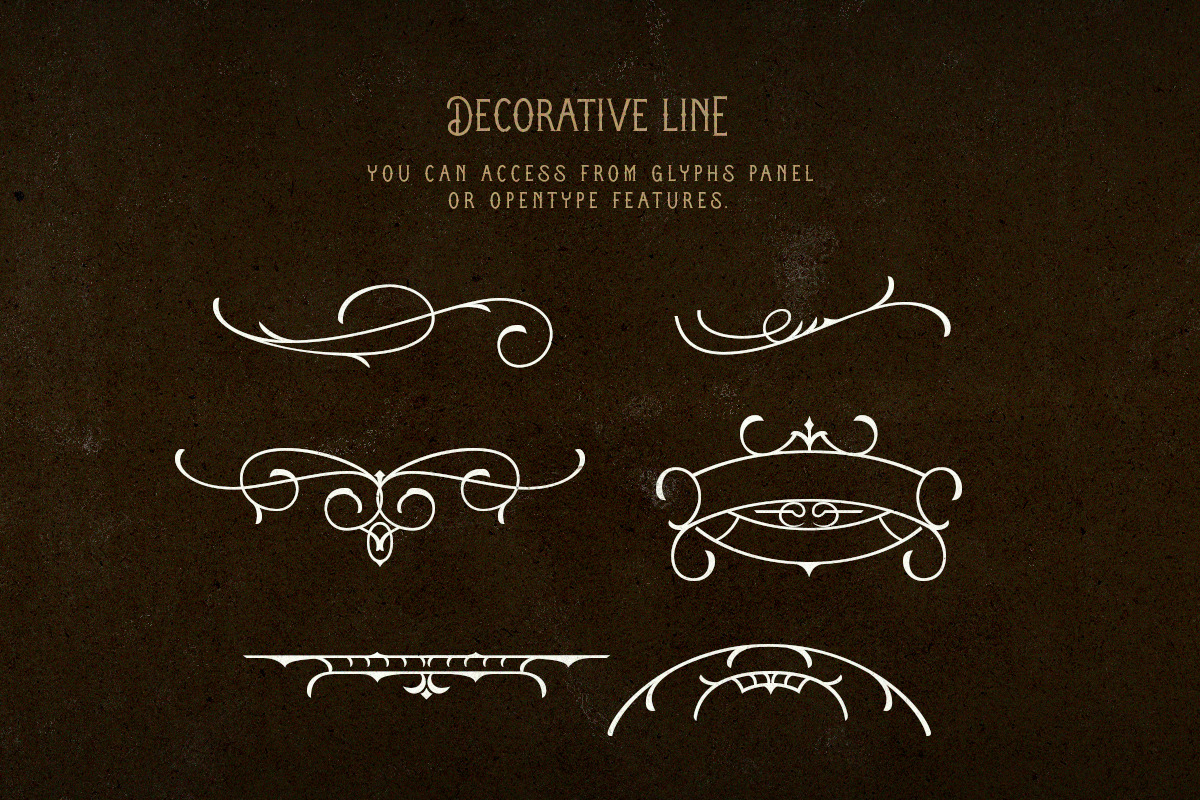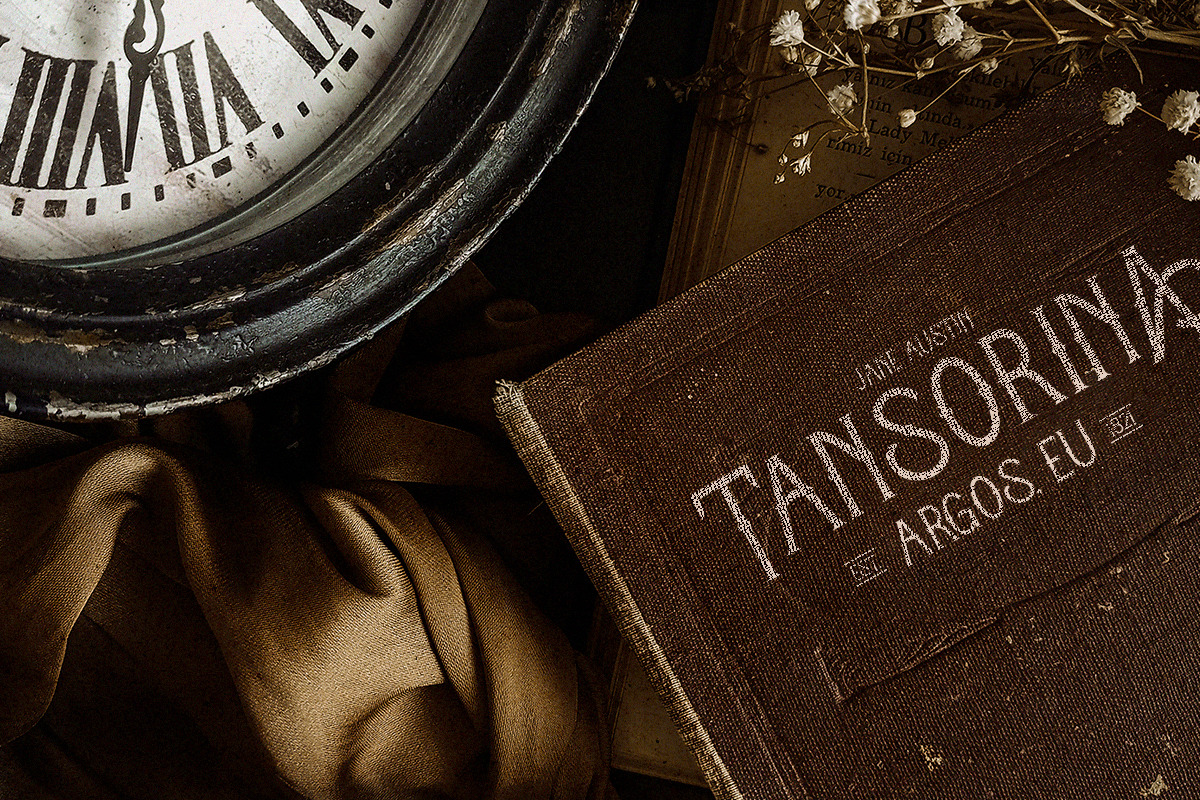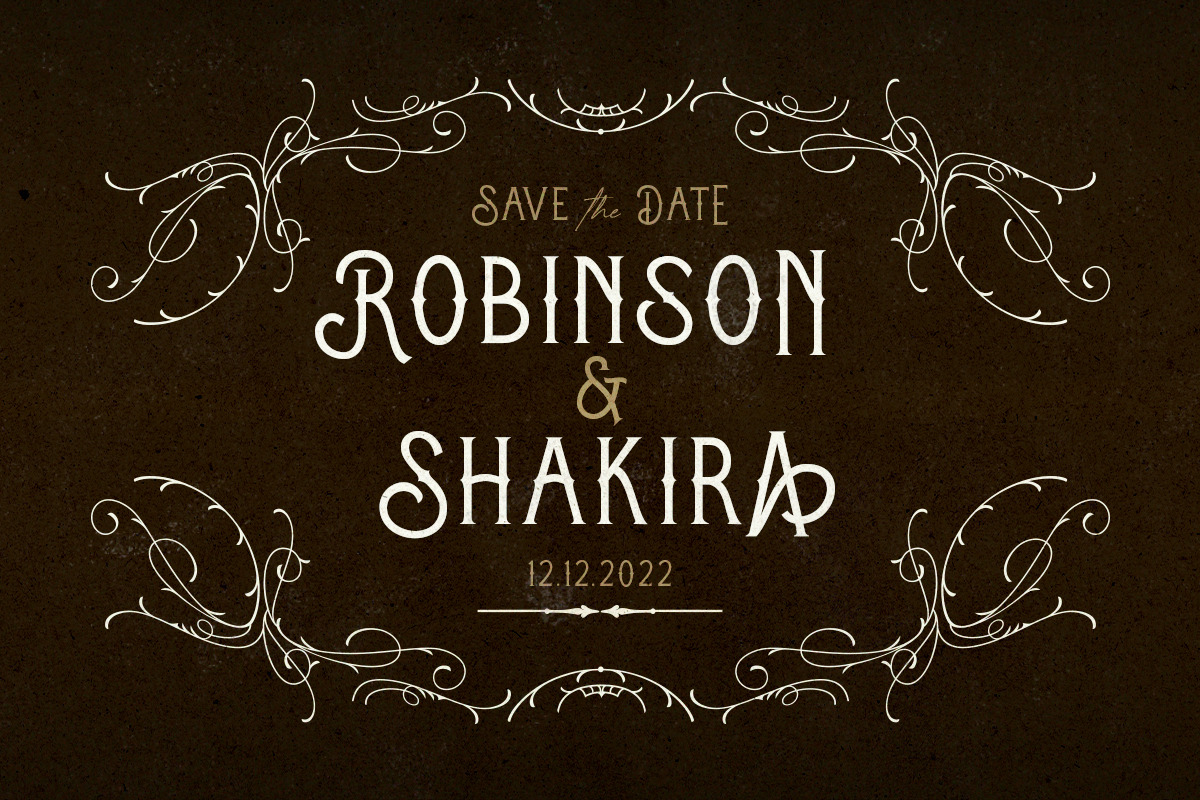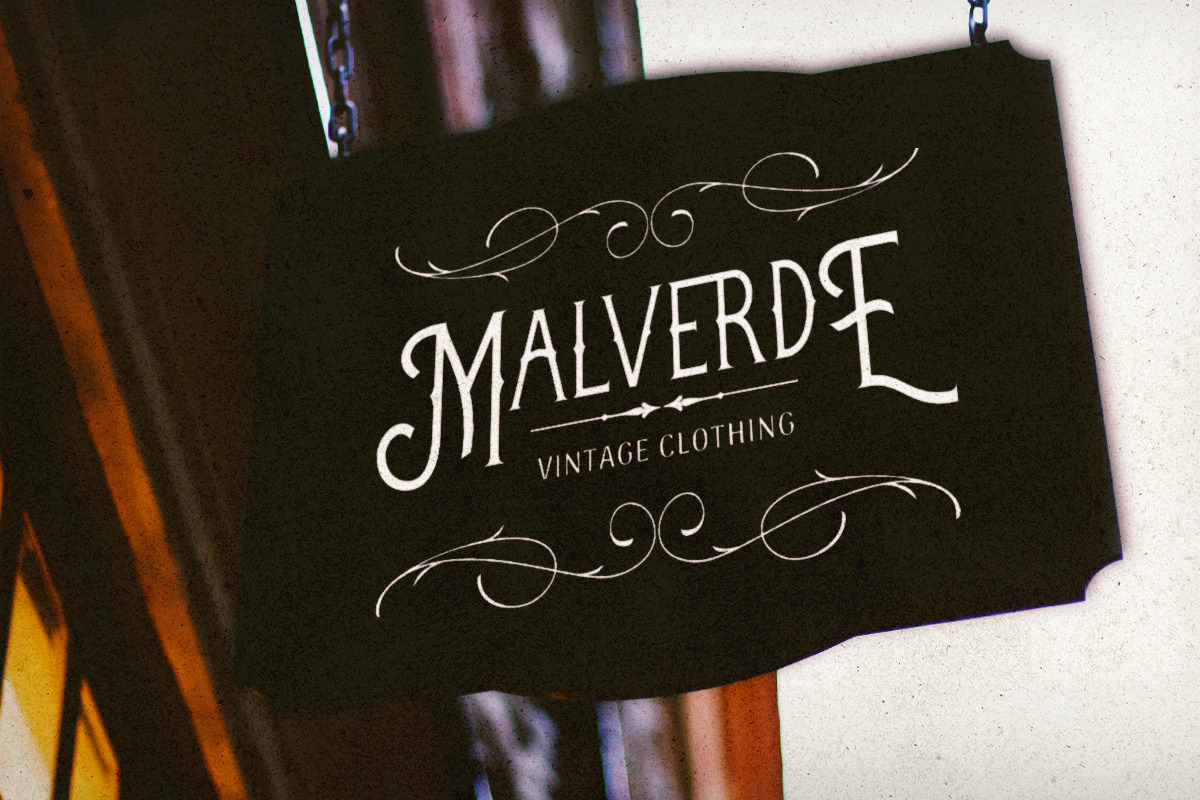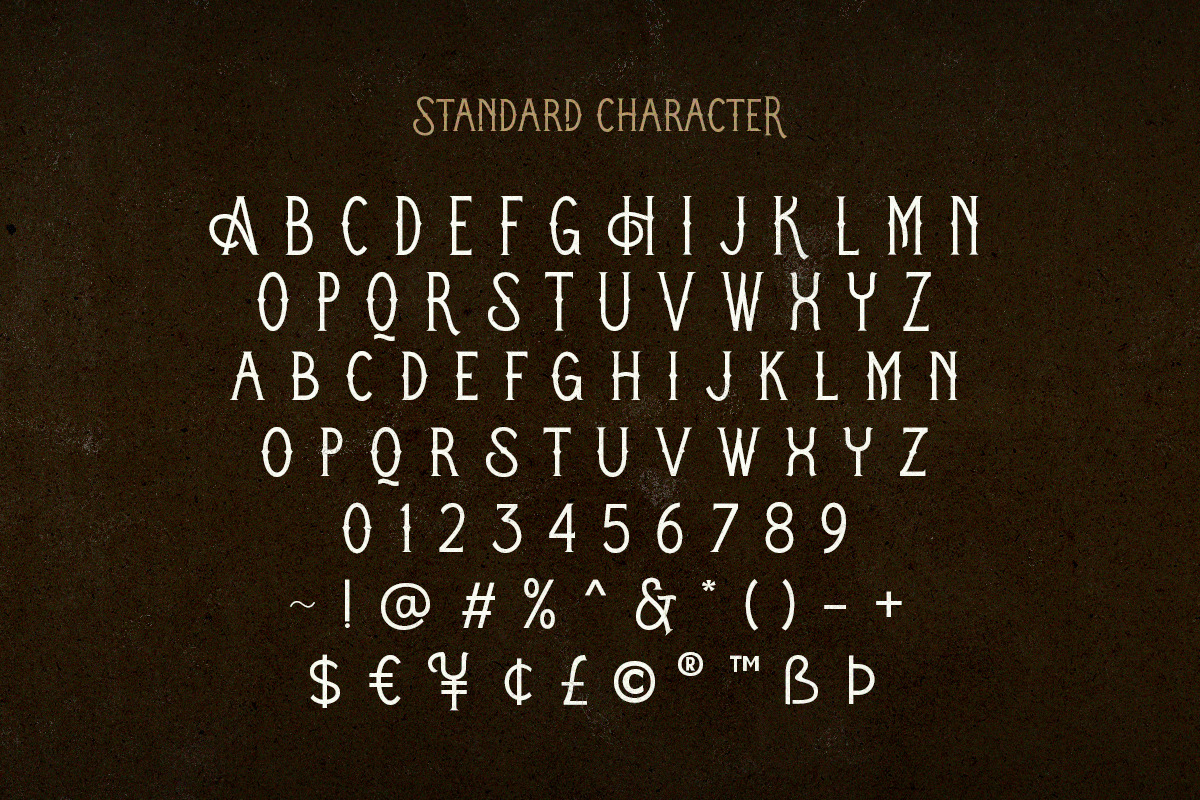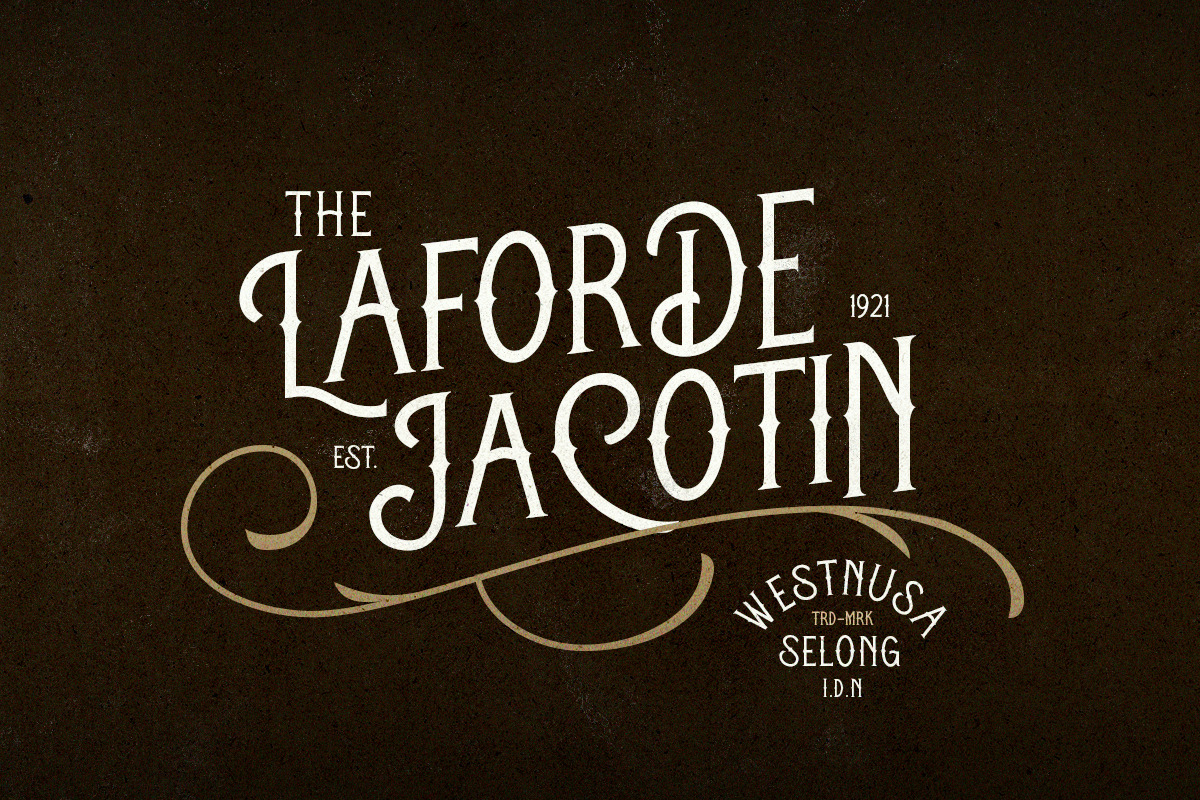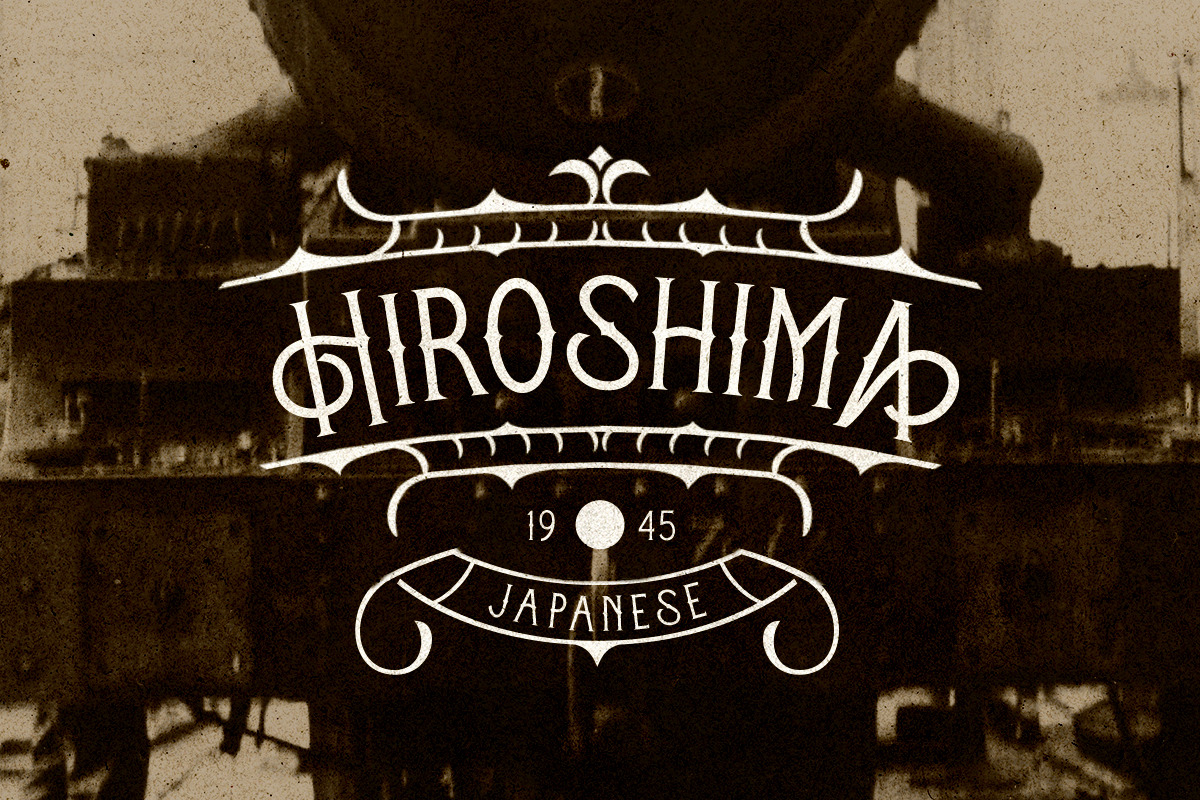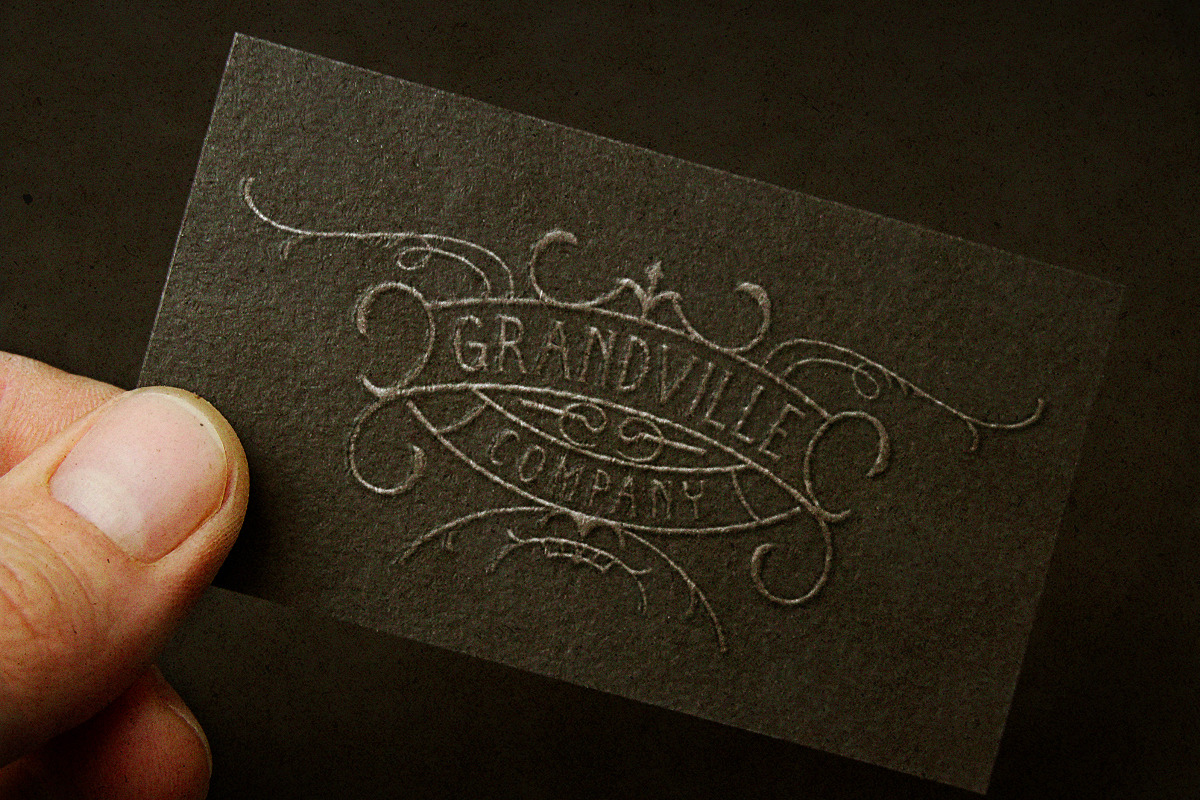
Architoria - Vintage Victorian Font
Architoria is a display font that have vintage victorian style. You can use this font for projects that need a vintage and old looks such as poster, logotype, and also for branding. With ligatures and alternates, you can get many options that will make your design more stunning. This font also come with decorative line that you can access from opentype features and glyphs panel in Adobe Photoshop/ Illustrator. Just type underscore + number (1-6), for example _3. Architoria also support multi language!